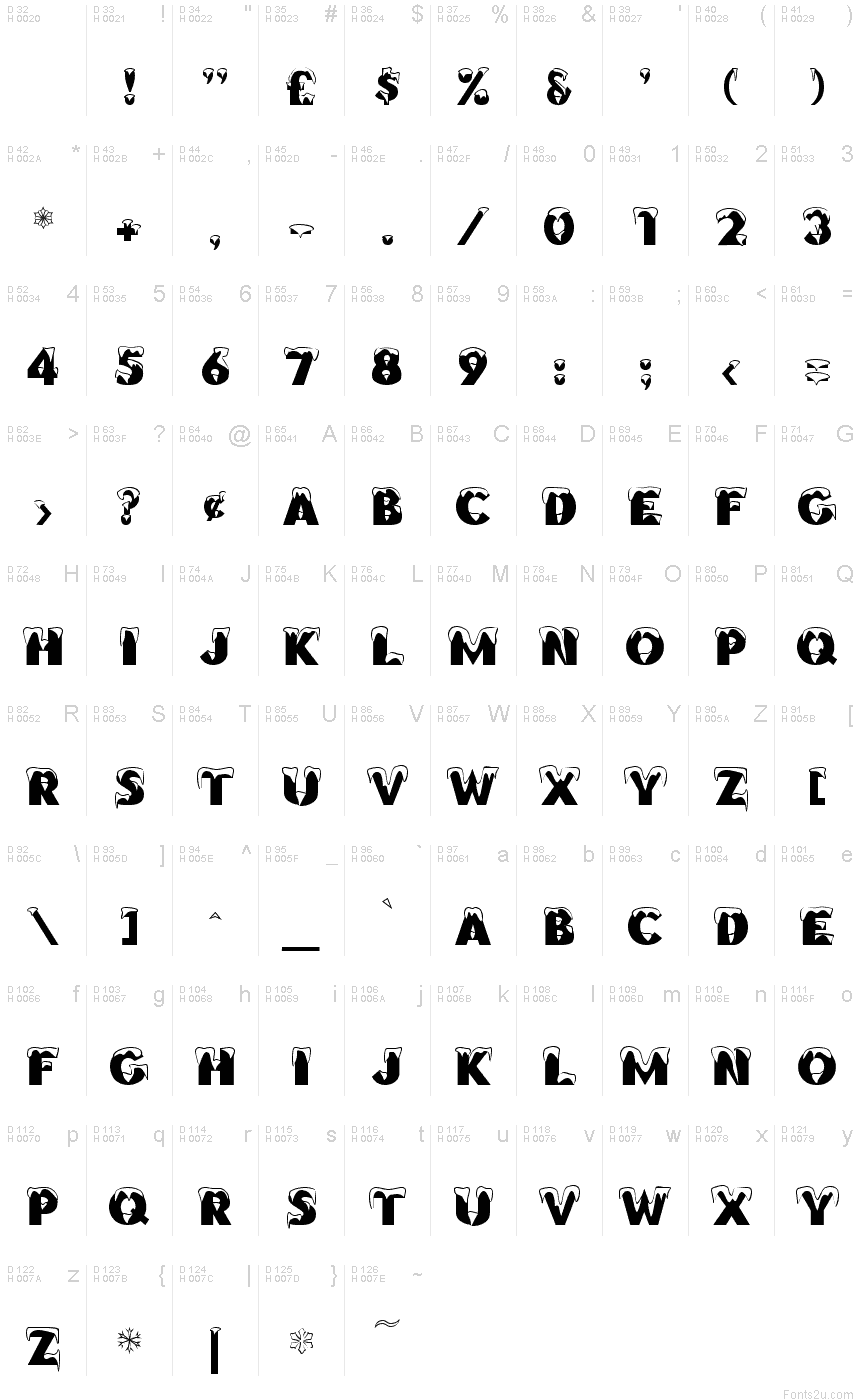
Brrrrr Regular
Brrrrr font by Robert Schenk is a free decorative cartoon snow display typeface that looks like letters bundled up in a thick winter coat. Heavy black forms are capped with puffy, white “snow” that slumps and wiggles, giving every word a chilly, shivering energy. The playful, blobby shapes feel hand-drawn and slightly uneven, like a frosty doodle on a fogged-up window.
Using Brrrrr, headlines instantly read as wintry, cozy, and fun-no extra graphics required. This free font works beautifully for holiday cards, kids’ winter worksheets, seasonal shop windows, party invitations, festival posters, and YouTube thumbnail titles. For body copy, pair it with a clean rounded sans serif and let Brrrrr handle just the big, attention-grabbing words.